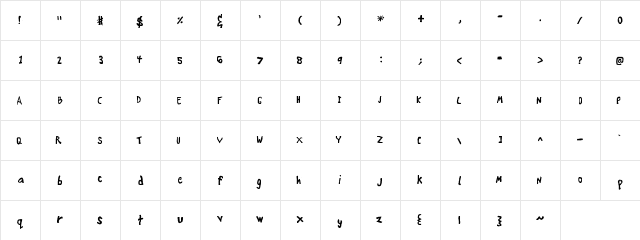
JifSkript Regular
| Designer | jmoney2oo3 |
Design Context for JifSkript Typeface
JifSkript is a composed and adaptable typeface that performs quietly and consistently across a wide range of design contexts.